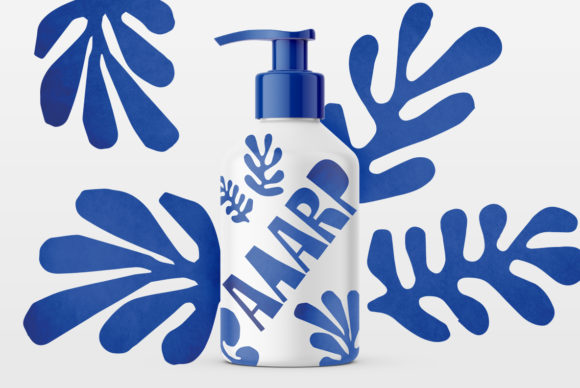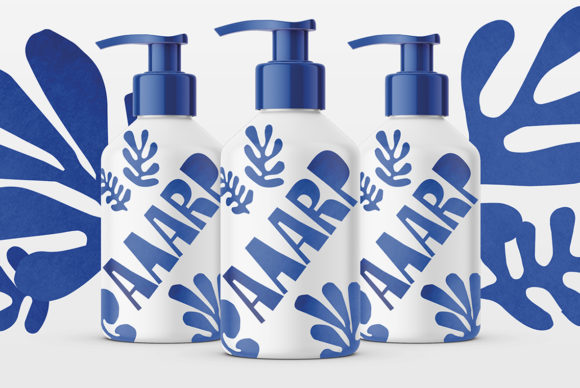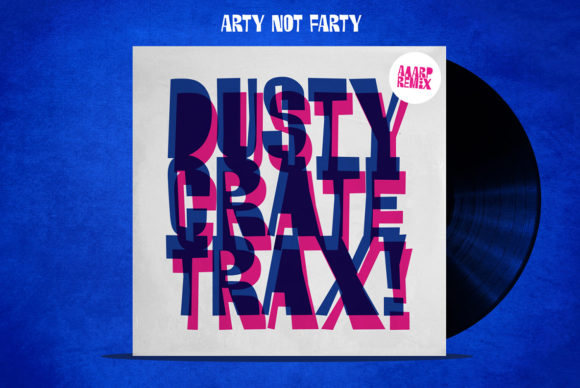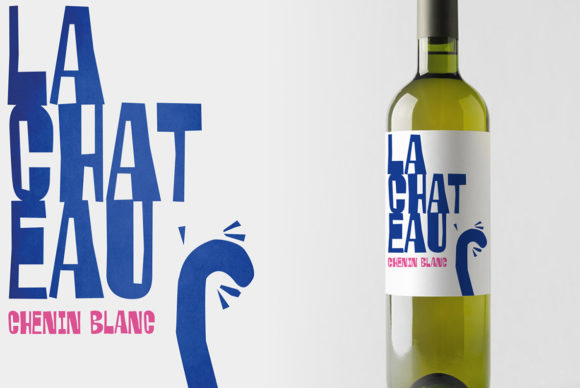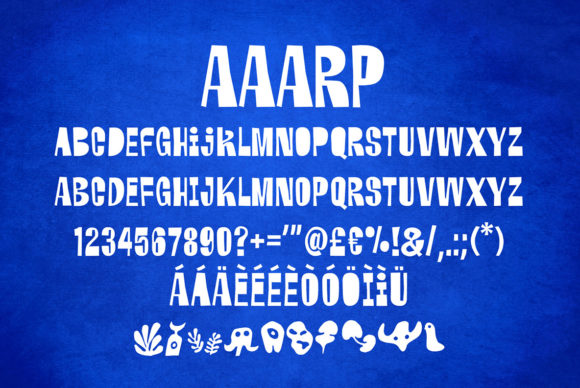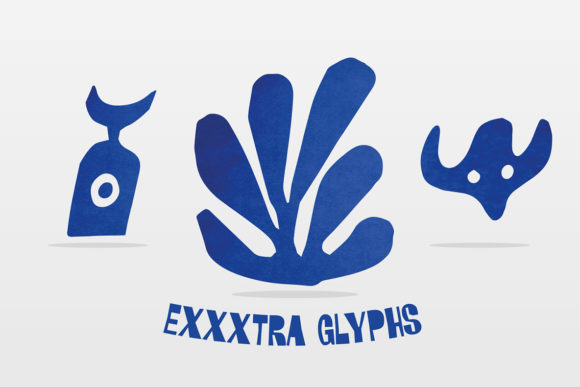
Aaarp Font: The Perfect Arty Display Font for Creative Projects
Are you a designer or crafter looking for a unique and playful font to add a touch of personality to your projects? Look no further than Aaarp Font! This arty display font is designed to bring a joyful and cheerful vibe to your creations, making it perfect for collages, crafting projects, and more.
What Makes Aaarp Font Special?
Aaarp Font is more than just a font – it’s a creative tool that can help you take your projects to the next level. Here are just a few features that make it stand out:
- Joyful and Cheerful Vibe: Aaarp Font has a playful and upbeat personality that’s sure to add a smile to anyone’s face. Its unique and quirky design makes it perfect for projects that require a bit of whimsy and fun.
- Extra Glyphs and Shapes: Aaarp Font comes with a range of extra glyphs and shapes that can be used to add visual interest to your projects. From stars and hearts to flowers and more, these glyphs and shapes can be used to create unique and eye-catching designs.
- Alternative Letters: Aaarp Font also includes alternative letters, which can be used to add variety and creativity to your text-based projects. Whether you’re creating a title or a heading, these alternative letters can help you stand out from the crowd.
Perfect for Collages and Crafting Projects
Aaarp Font is specifically designed with collages and crafting projects in mind. Its playful and arty vibe makes it perfect for:
- Collages: Aaarp Font can be used to add text and personality to your collages, making them more visually interesting and engaging.
- Crafting Projects: Whether you’re creating handmade cards, gift tags, or other crafting projects, Aaarp Font can be used to add a touch of whimsy and fun.
- Scrapbooking: Aaarp Font is also perfect for scrapbooking projects, where its playful and cheerful vibe can be used to add personality and interest to your pages.
Tips for Using Aaarp Font
Here are a few tips for getting the most out of Aaarp Font:
- Experiment with Different Sizes and Colors: Aaarp Font looks great in a range of sizes and colors, so don’t be afraid to experiment and find the combination that works best for your project.
- Mix and Match with Other Fonts: Aaarp Font can be paired with other fonts to create a unique and interesting look. Try mixing and matching it with serif and sans serif fonts to add visual interest to your projects.
- Use the Extra Glyphs and Shapes: Don’t forget to use the extra glyphs and shapes that come with Aaarp Font. These can be used to add visual interest and personality to your projects.
Aaarp Font is a unique and playful arty display font that’s perfect for designers and crafters looking to add a touch of personality to their projects. With its joyful and cheerful vibe, extra glyphs and shapes, and alternative letters, Aaarp Font is the perfect creative tool for collages, crafting projects, and more. So why not give it a try and see what amazing creations you can come up with?